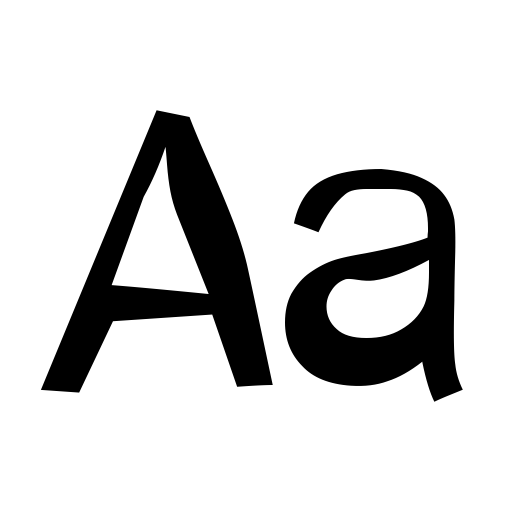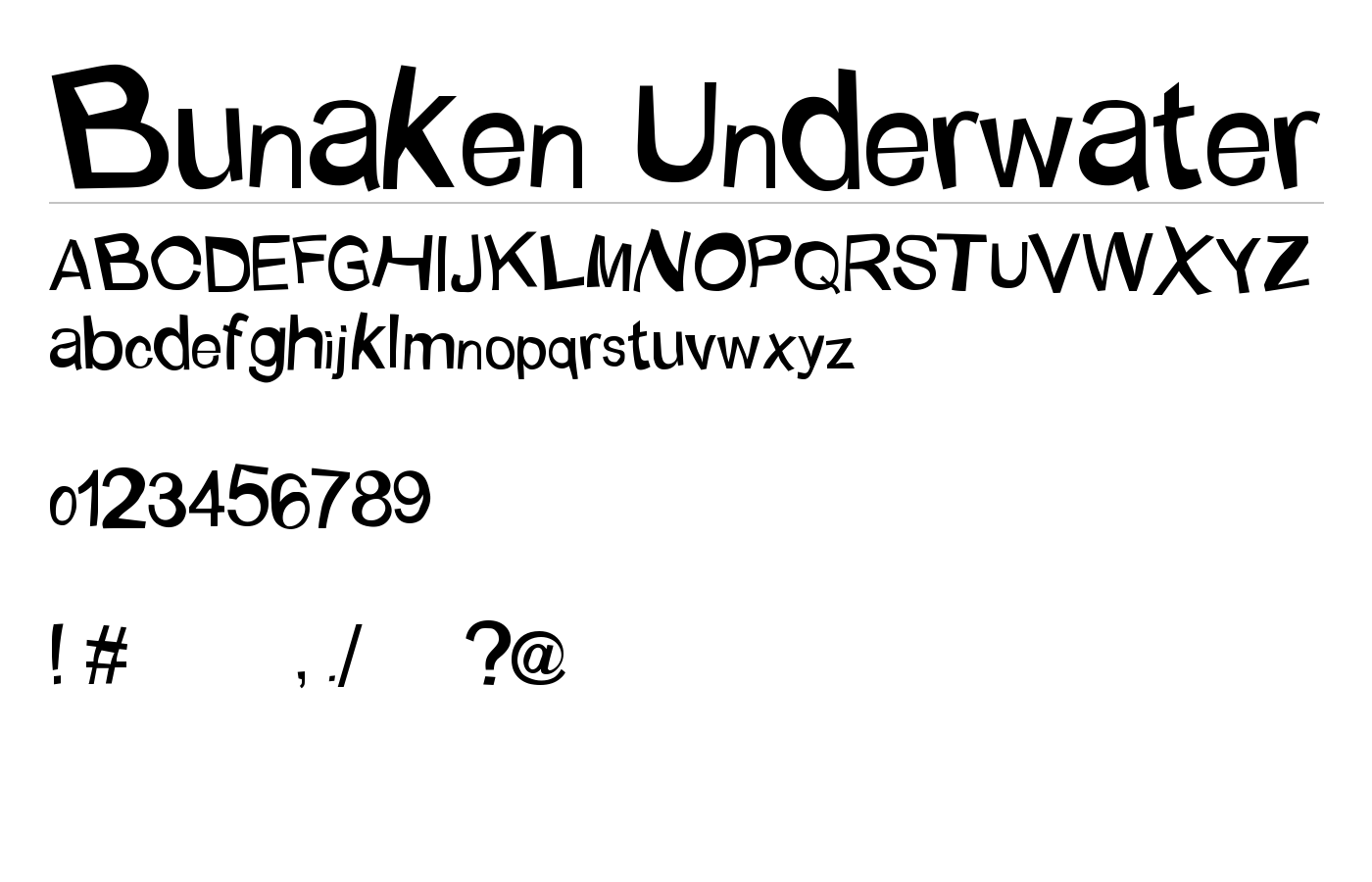
Bunaken Underwater is a playful, quirky sans serif font with uneven, slightly wavy letterforms that evoke an underwater or whimsical feel. Its irregular shapes and varying stroke widths give it a light, friendly personality, making it ideal for informal designs, children's materials, and creative branding. This font works best in headlines or decorative text where its fun and lively character can shine.
Bunaken Underwater Font
About Bunaken Underwater Font